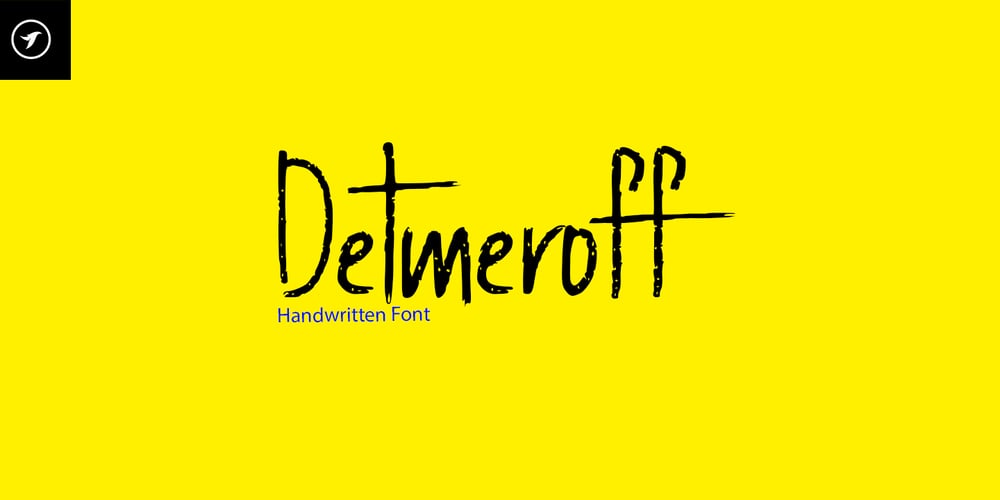
Detmeroff
Detmeroff font
Detmeroff Font Family was designed by Lisha Joseph and published by Designova. Detmeroff contains 1 styles and family package options. Detmeroff is a unique handwritten typeface made with a custom semi-grunge brush inspired by cookies and brownie textures. This font is dedicated to branding, logotype, posters, big texts, and display usage. This single-weight font is best for creating outstanding logos, promotional content, and marketing graphics that can really grab the attention of your clients. Please see the examples above to get an idea about the capability of this typeface.